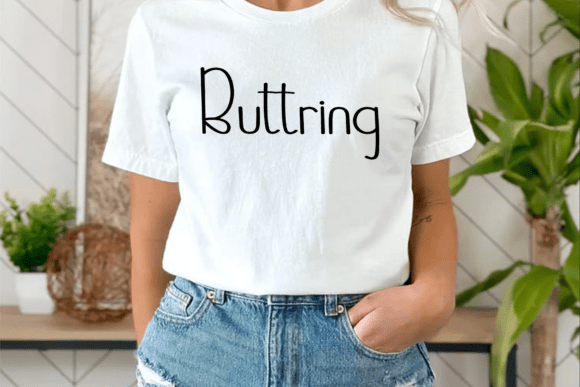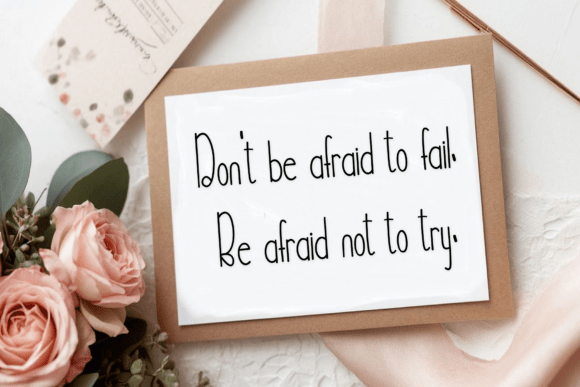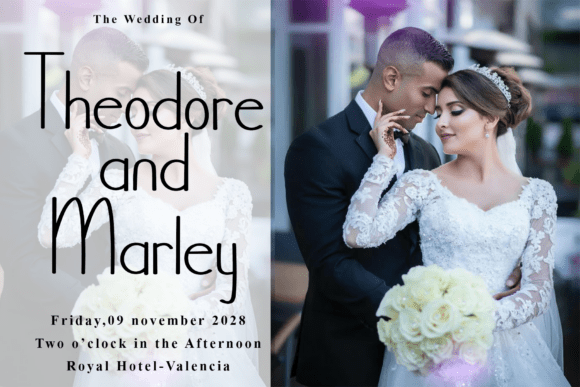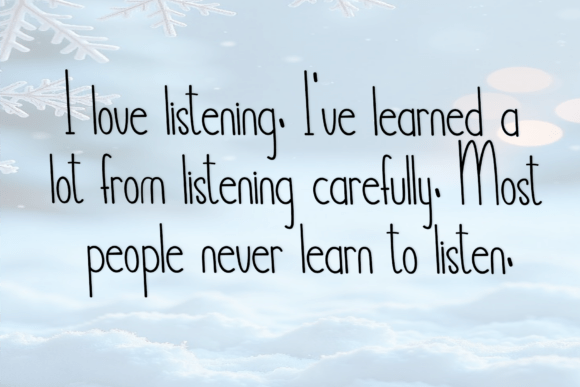
Introduction to Sample Childish Font
Bring a playful and innocent energy to your work with the Sample Childish font, a charming handwritten typeface that celebrates the joy of being young.
This Sample Childish typeface features tall, thin letterforms and an uneven rhythm that perfectly mimics a childโs careful printing Ideal for childrenโs books, school projects, and nursery decor, the Sample Childish font adds a lighthearted, human touch to any digital or print design.
Key Features of Sample Childish Font